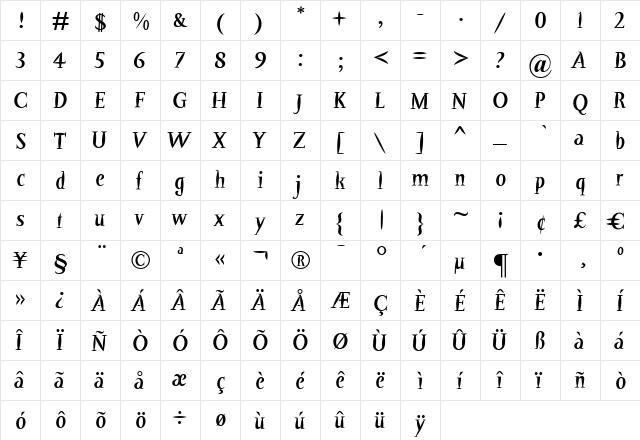
Barracuda Regular Regular
Design Context for Barracuda Regular Typeface
Barracuda Regular offers clean, dependable letterforms without strong stylistic allegiance, making it a practical choice for designers who need flexibility.